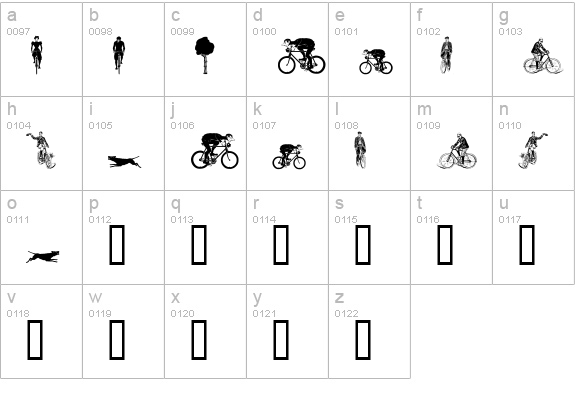
Bicycles font is a charming and playful typeface that captures the essence of carefree bike rides on a sunny day. Its rounded edges and whimsical design evoke a sense of fun and adventure, making it perfect for a variety of creative projects. Whether you're designing a poster for a cycling event or creating a cheerful greeting card, Bicycles font will bring a touch of joy to your work. The best part? Bicycles font is available for free download at FontsMarket.com. This means you can easily add this delightful font to your collection without breaking the bank. So why wait? Let Bicycles font take your designs for a spin and inject some lightheartedness into your next project.